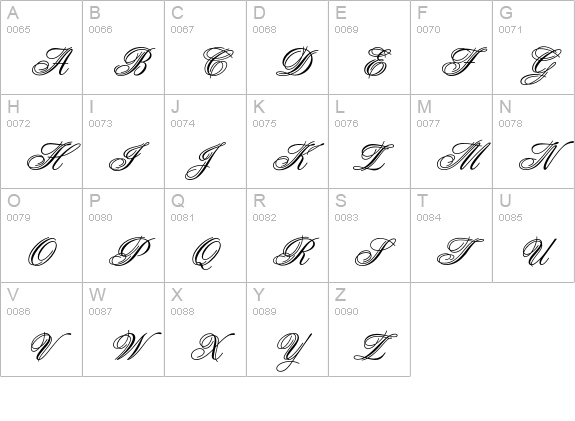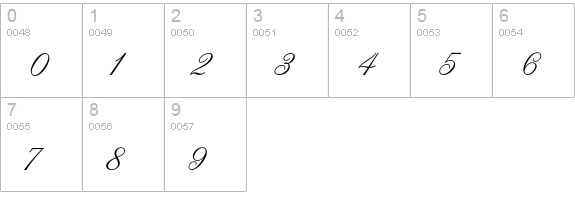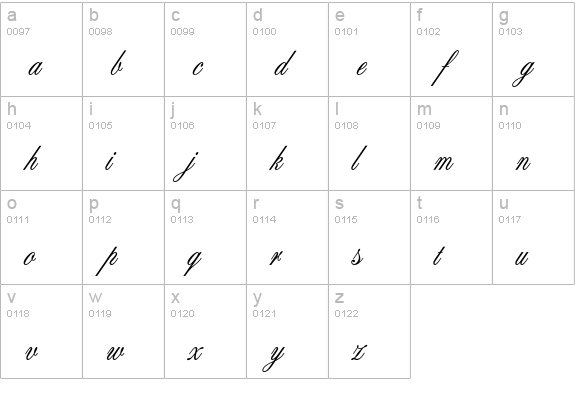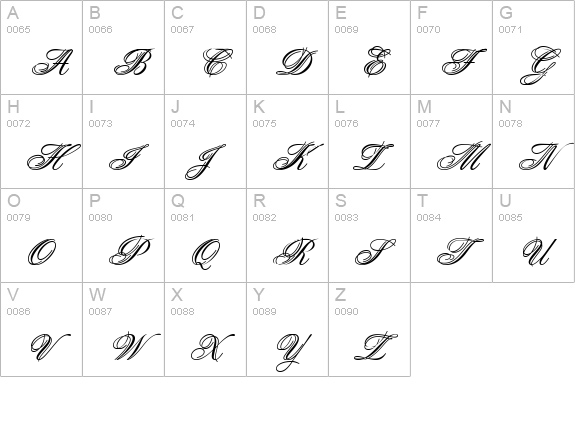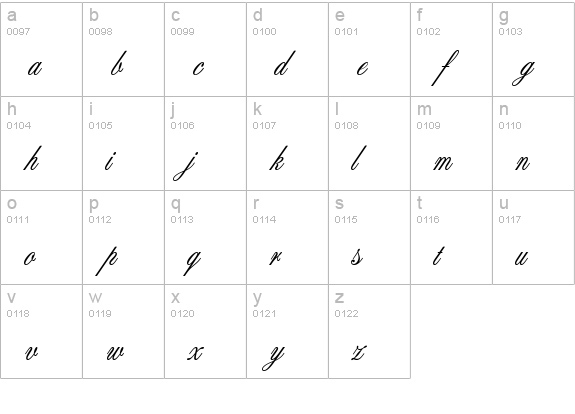
Aristocrat Std Font Details
Aristocrat Std font exudes elegance and sophistication with its classic and timeless design. This exquisite typeface features graceful curves and delicate serifs, making it perfect for adding a touch of refinement to your projects. Whether you're designing invitations, branding materials, or editorial pieces, Aristocrat Std is sure to elevate your work to new heights. The best part? Aristocrat Std is available for free download at FontsMarket.com. Now you can effortlessly incorporate this luxurious font into your designs without any cost. Don't miss out on the opportunity to enhance your projects with the beauty and charm of Aristocrat Std. Download it today and see the difference it can make!